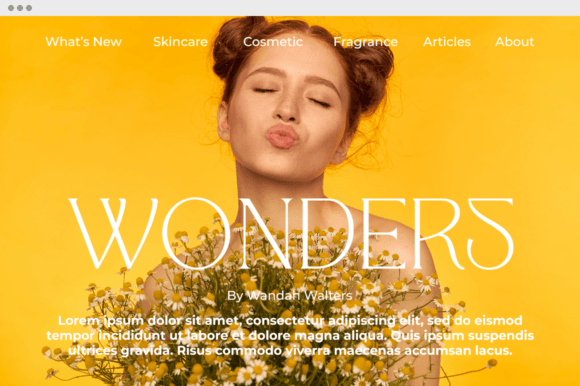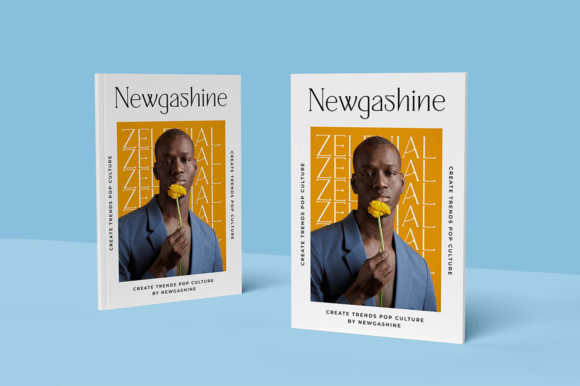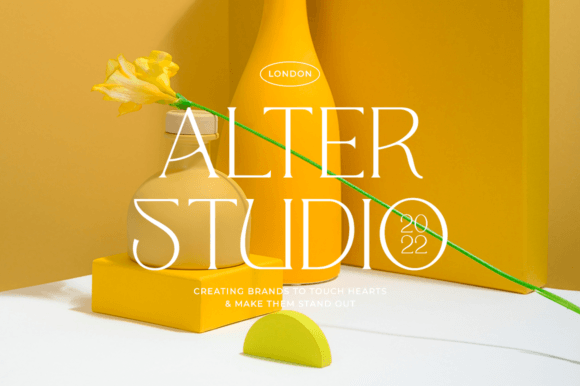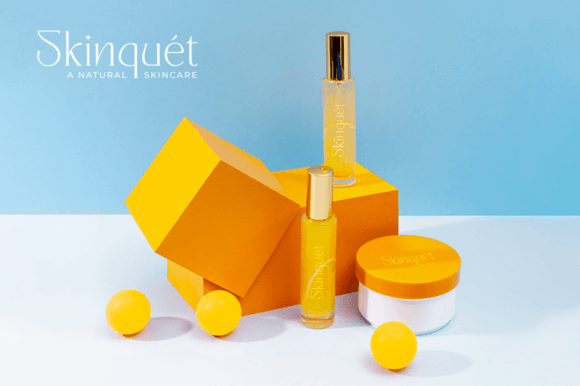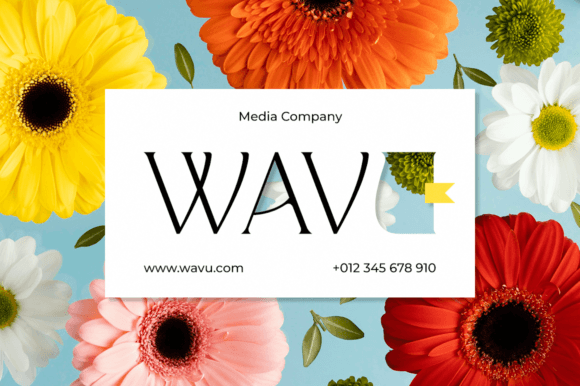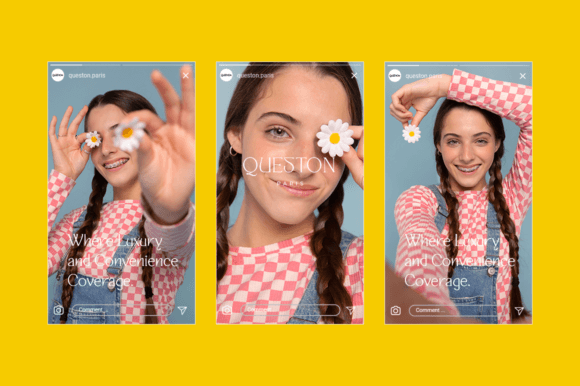
Introduction to Quisking Font
Do you remember the moment when you stumbled upon the perfect font for your creative project? The one that elevates your design to the next level, making it stand out from the crowd? For designers, finding that special font can be a game-changer, and we’re excited to introduce you to the Quisking Font.
This elegant, thin lettered, and distinct serif font has been gaining popularity among designers due to its neat and clean style. With its versatility, it’s no wonder that Quisking Font has become a sought-after design resource for creative projects. Whether you’re working on a logo, brochure, or website, this high-quality font is sure to deliver. And the best part? You can download it for free, perfect for designers on a budget.
One of the standout features of Quisking Font is its transparent background, making it easy to overlay on any design element. With its unique character and professional feel, this font is sure to become your go-to choice for any creative project.
Key Features of Quisking Font
- High-quality design for creative projects, offering a unique and stylish aesthetic.
- Features a transparent background, allowing for easy customization and flexibility in design applications.
- Designed with high resolution (up to 300 DPI), ensuring crisp and clear text display in print and digital applications.
- Includes a large character set, supporting a wide range of languages and characters for diverse creative projects.
Honest Review: Quisking Font
I recently had the chance to try out the Quisking Font, and I’m excited to share my thoughts. This font is a great addition to any designer’s toolkit, offering a unique and modern look that’s perfect for creative projects.
- The font features a high-quality design with clean lines and a transparent background, making it easy to use on various backgrounds.
- The font is highly customizable, allowing designers to adjust the style to fit their specific needs.
Overall, I’m impressed with the Quisking Font. While it has some limitations, it’s a great choice for designers looking for a unique and modern font for their creative projects. I’d definitely recommend giving it a try!
Tips for Getting the Most Out of Quisking Font
For a seamless design, use the Quisking Font with a transparent background to ensure a clean and professional look. Experiment with different font sizes and styles to find the perfect fit for your creative project.
The Quisking Font is ideal for use in logos, branding materials, and digital graphics. Its high-quality design makes it a popular choice for designers and creatives.